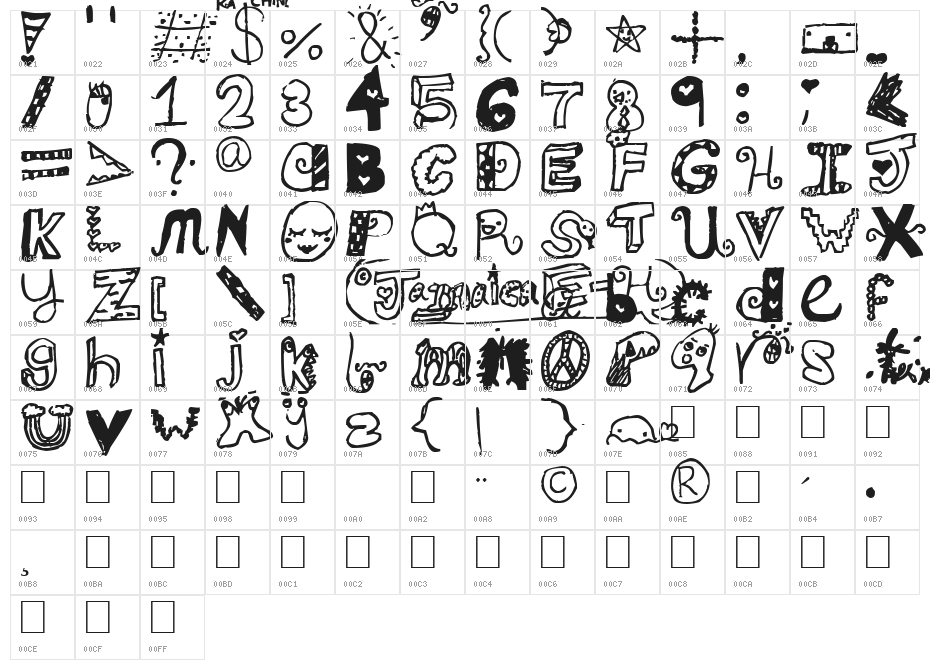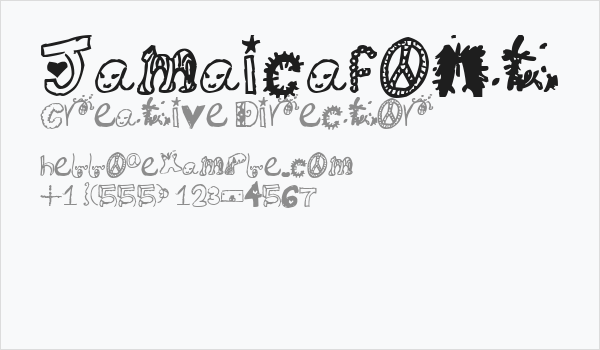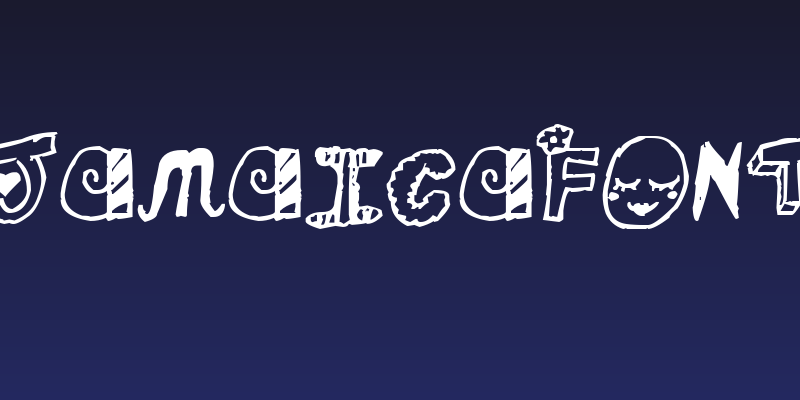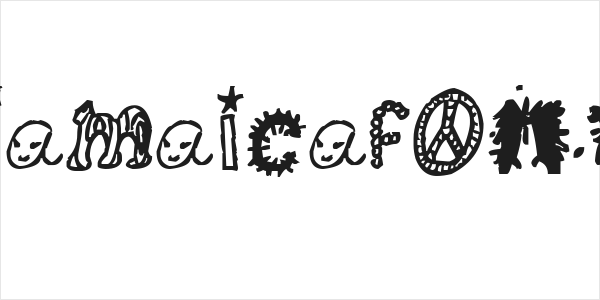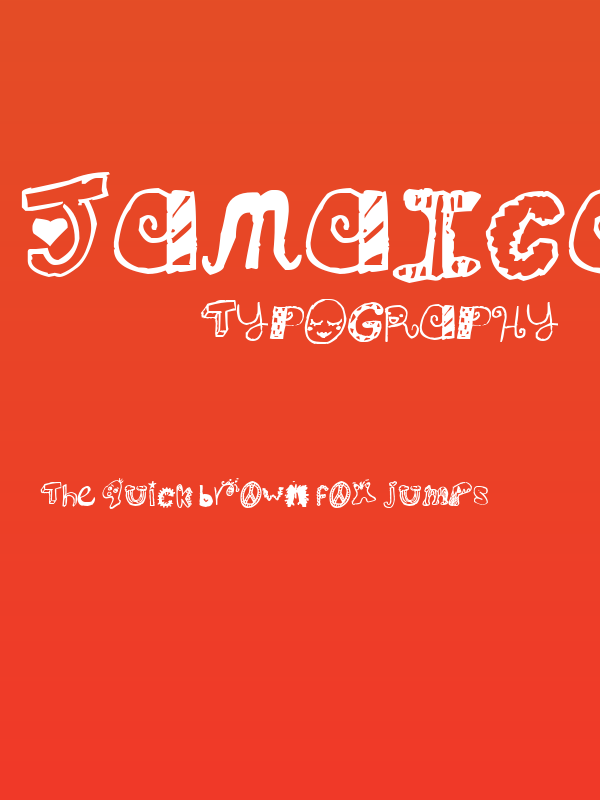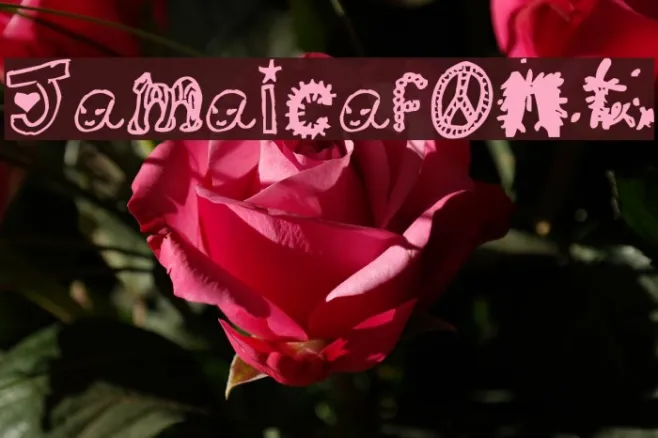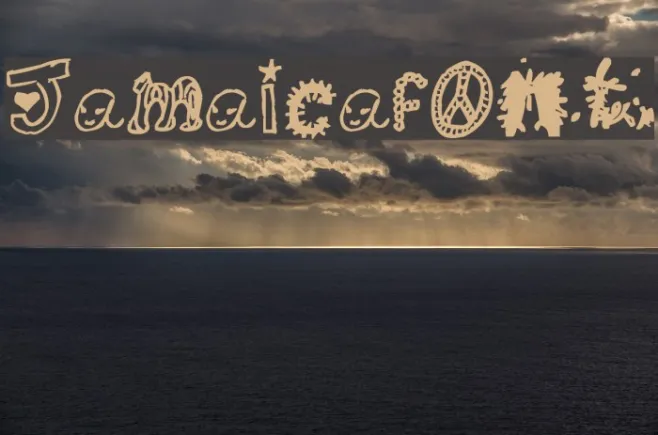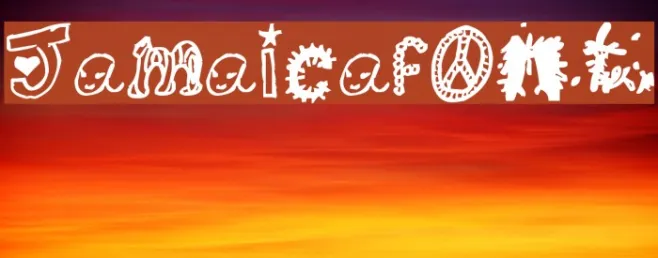
Jamaicafont Font
Jamaicafont Description
This font is a playful and eclectic collection of characters, each with its own unique design elements. The uppercase and lowercase letters are adorned with various patterns, including polka dots, stripes, and abstract shapes, giving each character a distinct personality. The numbers and special characters continue this theme, featuring quirky and imaginative designs. The overall style is whimsical and artistic, making it stand out with its bold and decorative appearance. This font is ideal for creative projects that require a fun and eye-catching typeface.